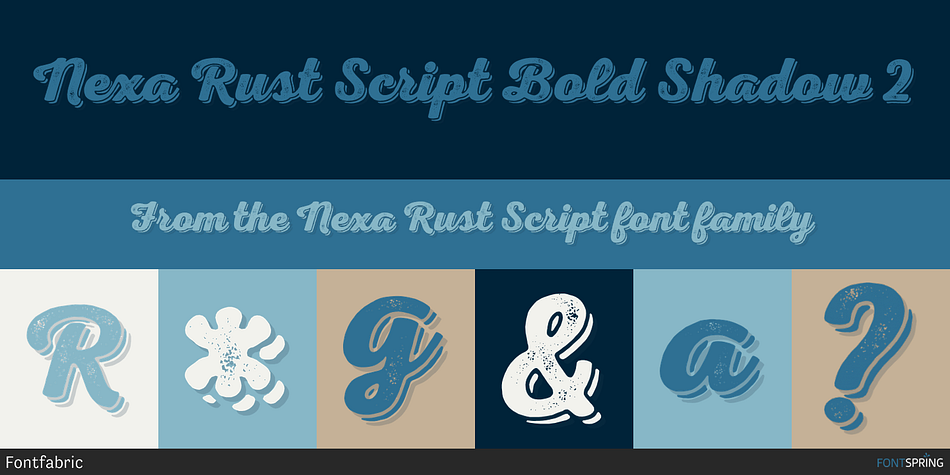
Nexa Rust Script Bold Shadow 2
Nexa Rust Script is a grunge and brush script font family. This typeface has fifty-five styles and was published by Fontfabric.
Nexa Rust from Fontfabric Type Foundry is a multifaceted font system consisting of font sub-families Sans, Slab, Script, Handmade and Extras.
Each of these sub-families contains a number of font weights which have a characteristic warm, rough look and display a few degrees of saturation.
Nexa Rust is a rough version of the already popular Nexa and Nexa Slab families with added new matching Nexa Script and Nexa Handmade fonts.
Along with all of this, you will also discover added groups of extras which could serve as a foundation or add that extra “cherry on the cake” to each unique design.